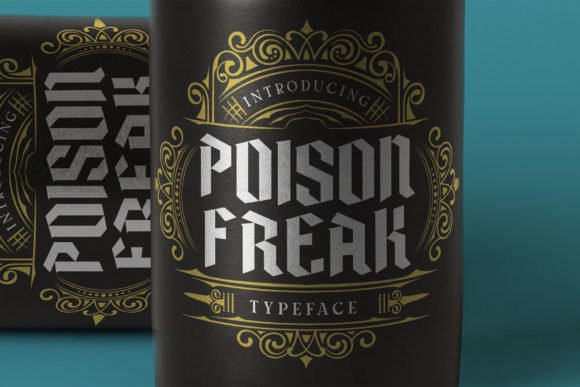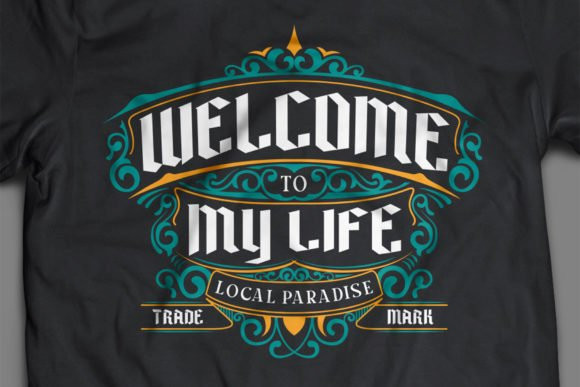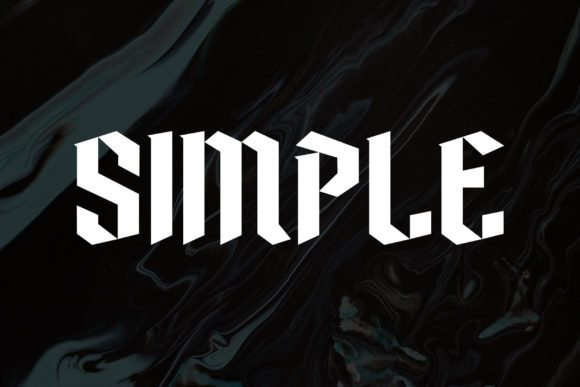
Poison Freak Font
Poison Freak is a casual blackletter font. The Poison Freak typeface is very suitable for design themed with gothic, vintage, rock designs, whiskey packaging designs and more.